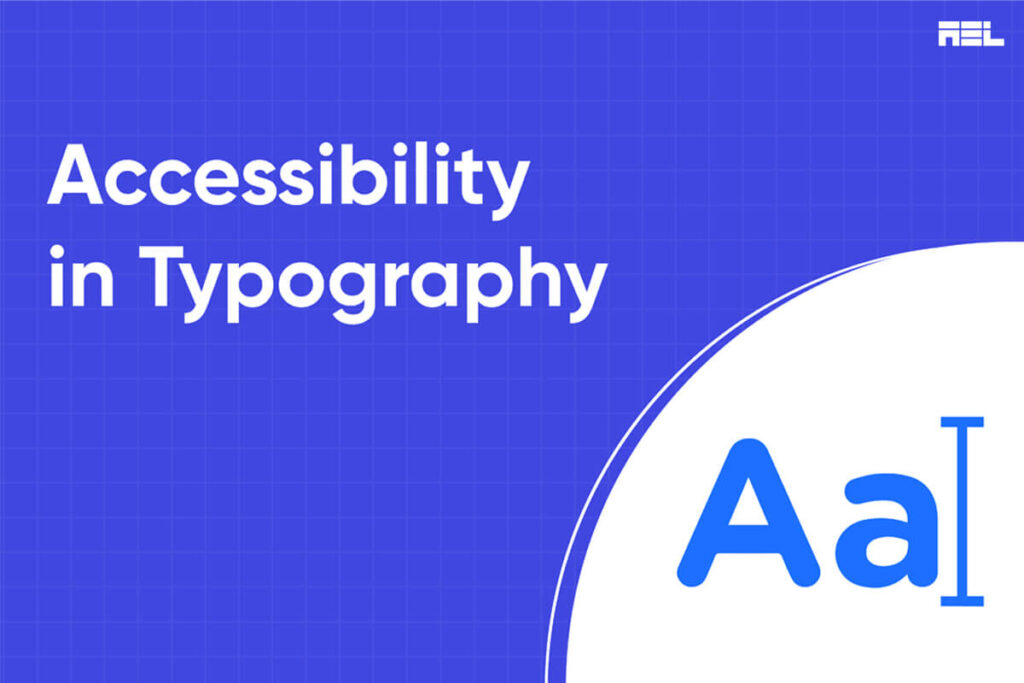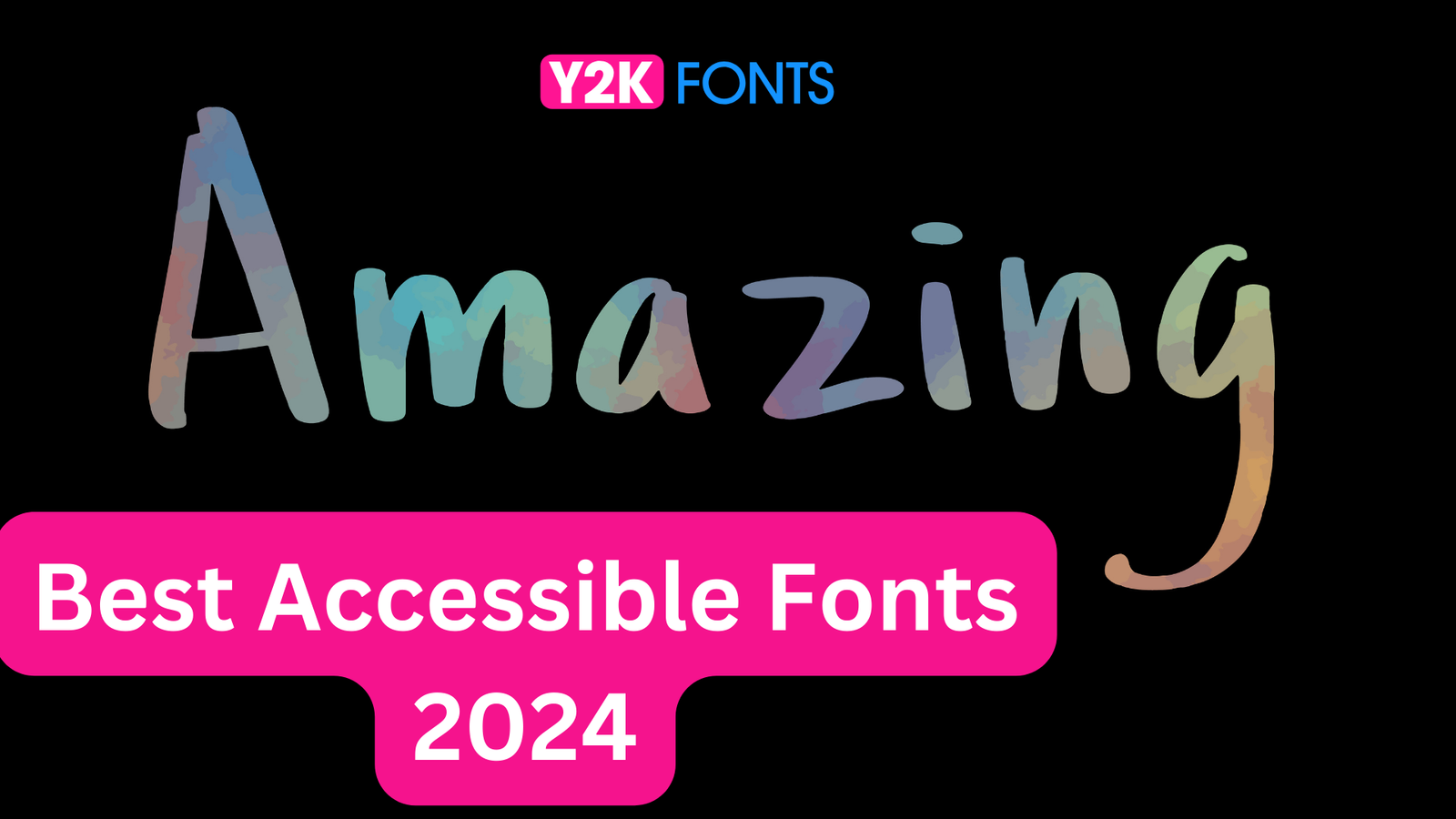
Best Fonts To Use For Accessibility . These are like your reliable friends. Discover the best ada compliant fonts for enhanced digital accessibility. Any platform or media you use to communicate with your target audience requires accessible fonts, including images, emails, and pdf documents. Accessible fonts are designed to be easier for visually impaired people to read and interpret. Think arial, helvetica, verdana, and tahoma. The accessibility features of these fonts include increased letter spacing, bold. Here’s where we get specific. To save you trawling the internet (and getting sidetracked by browsing free web fonts), we’ve gathered the best fonts for. Prioritizing fonts with clear, distinct characters and generous spacing enhances digital inclusivity! Discover the key characteristics of accessible fonts and learn best practices for selecting and combining typefaces that ensure. Typefaces are the foundation of accessible visual reading experiences, so choosing a performant typeface that enhances legibility and readability for people with poor vision, learning. Choosing an accessible font goes a long way in enabling people with certain disabilities to access content appearing on your.
Prioritizing fonts with clear, distinct characters and generous spacing enhances digital inclusivity! Think arial, helvetica, verdana, and tahoma. Accessible fonts are designed to be easier for visually impaired people to read and interpret. Any platform or media you use to communicate with your target audience requires accessible fonts, including images, emails, and pdf documents. Discover the best ada compliant fonts for enhanced digital accessibility. These are like your reliable friends. Here’s where we get specific. Discover the key characteristics of accessible fonts and learn best practices for selecting and combining typefaces that ensure. The accessibility features of these fonts include increased letter spacing, bold. To save you trawling the internet (and getting sidetracked by browsing free web fonts), we’ve gathered the best fonts for.
Best Fonts To Use For Accessibility These are like your reliable friends. Typefaces are the foundation of accessible visual reading experiences, so choosing a performant typeface that enhances legibility and readability for people with poor vision, learning. Any platform or media you use to communicate with your target audience requires accessible fonts, including images, emails, and pdf documents. To save you trawling the internet (and getting sidetracked by browsing free web fonts), we’ve gathered the best fonts for. Accessible fonts are designed to be easier for visually impaired people to read and interpret. These are like your reliable friends. Discover the key characteristics of accessible fonts and learn best practices for selecting and combining typefaces that ensure. Prioritizing fonts with clear, distinct characters and generous spacing enhances digital inclusivity! The accessibility features of these fonts include increased letter spacing, bold. Discover the best ada compliant fonts for enhanced digital accessibility. Choosing an accessible font goes a long way in enabling people with certain disabilities to access content appearing on your. Here’s where we get specific. Think arial, helvetica, verdana, and tahoma.
Designing Accessible Content Typography, Font Styling, and Structure Best Fonts To Use For Accessibility Here’s where we get specific. Any platform or media you use to communicate with your target audience requires accessible fonts, including images, emails, and pdf documents. Typefaces are the foundation of accessible visual reading experiences, so choosing a performant typeface that enhances legibility and readability for people with poor vision, learning. Prioritizing fonts with clear, distinct characters and generous spacing. Best Fonts To Use For Accessibility.
How to Choose Fonts for Site Speed and Accessibility Mediavine Best Fonts To Use For Accessibility To save you trawling the internet (and getting sidetracked by browsing free web fonts), we’ve gathered the best fonts for. Any platform or media you use to communicate with your target audience requires accessible fonts, including images, emails, and pdf documents. Discover the best ada compliant fonts for enhanced digital accessibility. Discover the key characteristics of accessible fonts and learn. Best Fonts To Use For Accessibility.
80+ Best Canva Fonts Ultimate Canva Font Guide for Choosing Fonts Best Fonts To Use For Accessibility These are like your reliable friends. Discover the best ada compliant fonts for enhanced digital accessibility. Here’s where we get specific. Think arial, helvetica, verdana, and tahoma. Prioritizing fonts with clear, distinct characters and generous spacing enhances digital inclusivity! Accessible fonts are designed to be easier for visually impaired people to read and interpret. Typefaces are the foundation of accessible. Best Fonts To Use For Accessibility.
ADA Sign Guidelines Read Our Blog Connecting Signs Best Fonts To Use For Accessibility Think arial, helvetica, verdana, and tahoma. Discover the best ada compliant fonts for enhanced digital accessibility. To save you trawling the internet (and getting sidetracked by browsing free web fonts), we’ve gathered the best fonts for. Prioritizing fonts with clear, distinct characters and generous spacing enhances digital inclusivity! The accessibility features of these fonts include increased letter spacing, bold. Any. Best Fonts To Use For Accessibility.
How to Create Accessible Designs [Tips + Templates] Venngage Best Fonts To Use For Accessibility Discover the best ada compliant fonts for enhanced digital accessibility. Accessible fonts are designed to be easier for visually impaired people to read and interpret. Any platform or media you use to communicate with your target audience requires accessible fonts, including images, emails, and pdf documents. To save you trawling the internet (and getting sidetracked by browsing free web fonts),. Best Fonts To Use For Accessibility.
What are the easiest fonts to read? Best Fonts To Use For Accessibility The accessibility features of these fonts include increased letter spacing, bold. Choosing an accessible font goes a long way in enabling people with certain disabilities to access content appearing on your. Here’s where we get specific. Discover the key characteristics of accessible fonts and learn best practices for selecting and combining typefaces that ensure. Think arial, helvetica, verdana, and tahoma.. Best Fonts To Use For Accessibility.
Typographic Accessibility Design Your Type IXDPratt Best Fonts To Use For Accessibility Here’s where we get specific. Any platform or media you use to communicate with your target audience requires accessible fonts, including images, emails, and pdf documents. Choosing an accessible font goes a long way in enabling people with certain disabilities to access content appearing on your. Prioritizing fonts with clear, distinct characters and generous spacing enhances digital inclusivity! Discover the. Best Fonts To Use For Accessibility.
A Designer’s Complete Guide to Accessible Fonts Best Fonts To Use For Accessibility Accessible fonts are designed to be easier for visually impaired people to read and interpret. Typefaces are the foundation of accessible visual reading experiences, so choosing a performant typeface that enhances legibility and readability for people with poor vision, learning. Discover the best ada compliant fonts for enhanced digital accessibility. These are like your reliable friends. Here’s where we get. Best Fonts To Use For Accessibility.